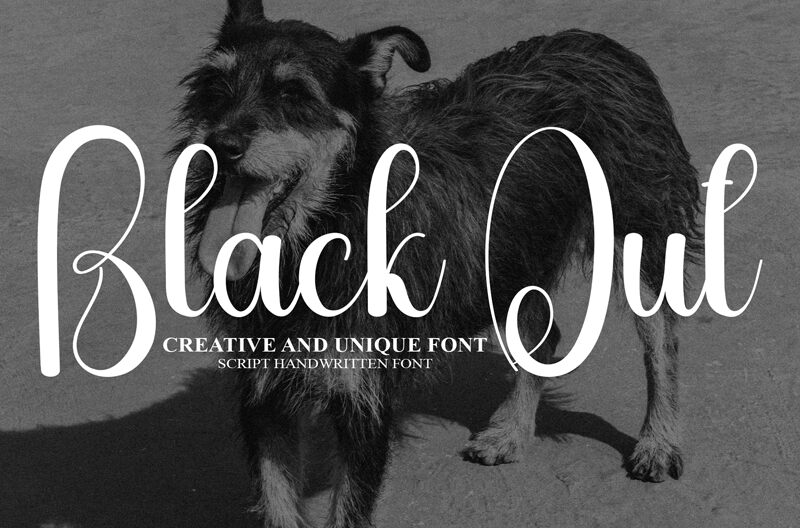
Black Out
Black Out is a captivating calligraphic font designed by Andi Moz. The elegant, flowing strokes and dramatic flourishes of this typeface exude a sense of sophistication and artistry. The font's distinctive style blends traditional calligraphy with a modern, expressive flair, making it a versatile choice for a wide range of design applications.
Black Out's striking visual impact and distinctive character lend themselves well to headings, logos, and decorative elements. Its fluidity and organic forms create a sense of movement and energy, making it an excellent option for projects that require a touch of elegance and visual impact.
This is a sweet and friendly handwritten display font. Cute and fun, this font is ideal for writing wedding invitations, cards, or any other design that might need a playful touch.
Black Out's striking visual impact and distinctive character lend themselves well to headings, logos, and decorative elements. Its fluidity and organic forms create a sense of movement and energy, making it an excellent option for projects that require a touch of elegance and visual impact.
This is a sweet and friendly handwritten display font. Cute and fun, this font is ideal for writing wedding invitations, cards, or any other design that might need a playful touch.